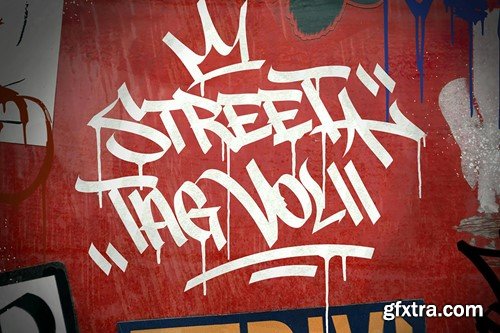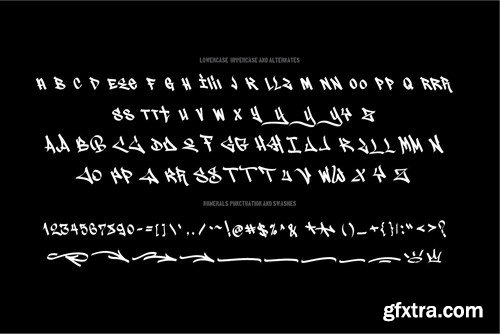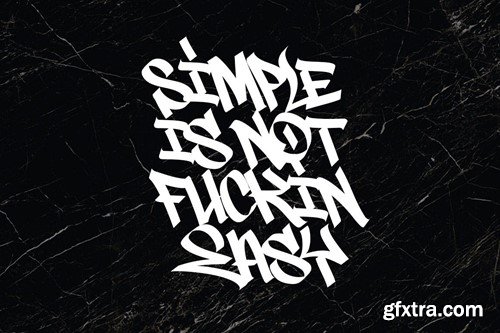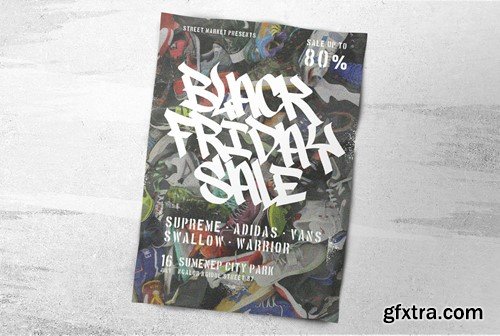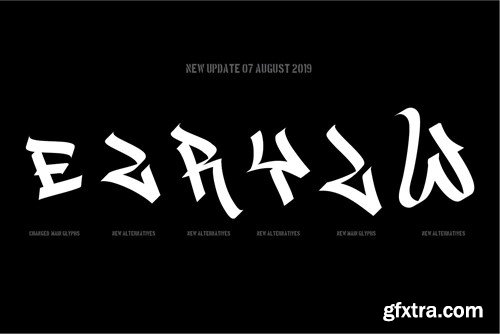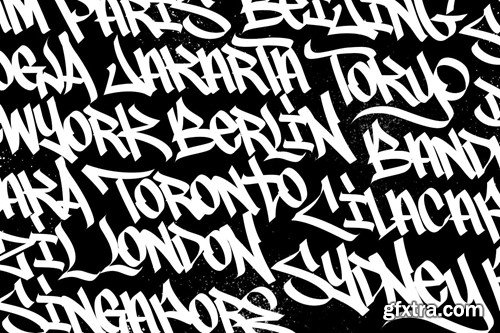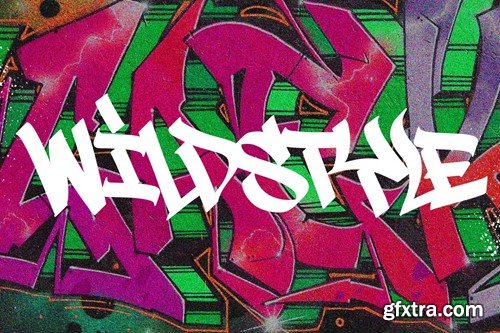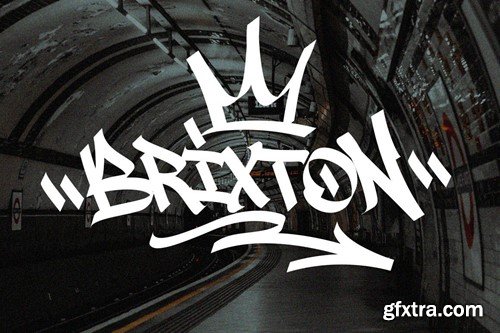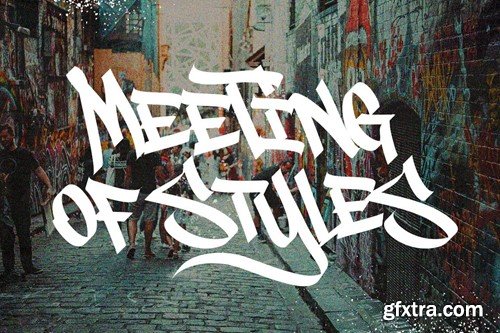
Street Tag vol 2 is the second version of Street Tag fonts. Inspired from realistic caligraphy tagging style in many big cities. This style is more bold and readable, perfect for your “street art” designs style. I combined the real graffiti experiences into computer fonts, I think it will be different with other fonts if you can feel it, cause I draw graffiti, tagging and throw ups since I was high school. The real tagging style is never be tidy, but don’t worry, I already adjust the kerning and spacing in the best possible way. You’ll find the better result when you adjust the kerning, and edit baseline manually, especially for the alternates font, if you unfamiliar with these one, you can find many tutorials in youtube, for the example https://www.youtube.com/watch?v=251cTL029M4. what will you get You’ll get some alternates in several alphabet, see that in the font preview. You’ll get some bonus here in vector base, outlined alphabet, special character (drips, spray effect and another tag symbol) special letter Y,I,T and * in vector path base. So you can edit the path as you like, combine with the original font, then you can see the sample. Btw in some sample fonts, sometimes I change the dot in “I” to stars, and I add ‘ into “O”, sometimes we do that in the real walls! You can explore more with this fonts! File included otf